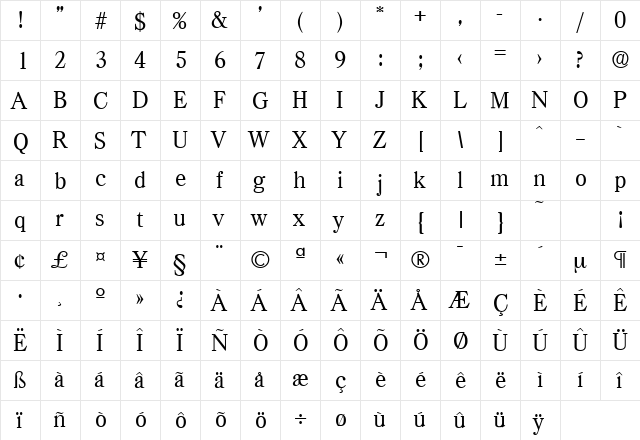
Casad-Serial Regular
Design Context for Casad-Serial Typeface
Casad-Serial offers clean, dependable letterforms without strong stylistic allegiance, making it a practical choice for designers who need flexibility.